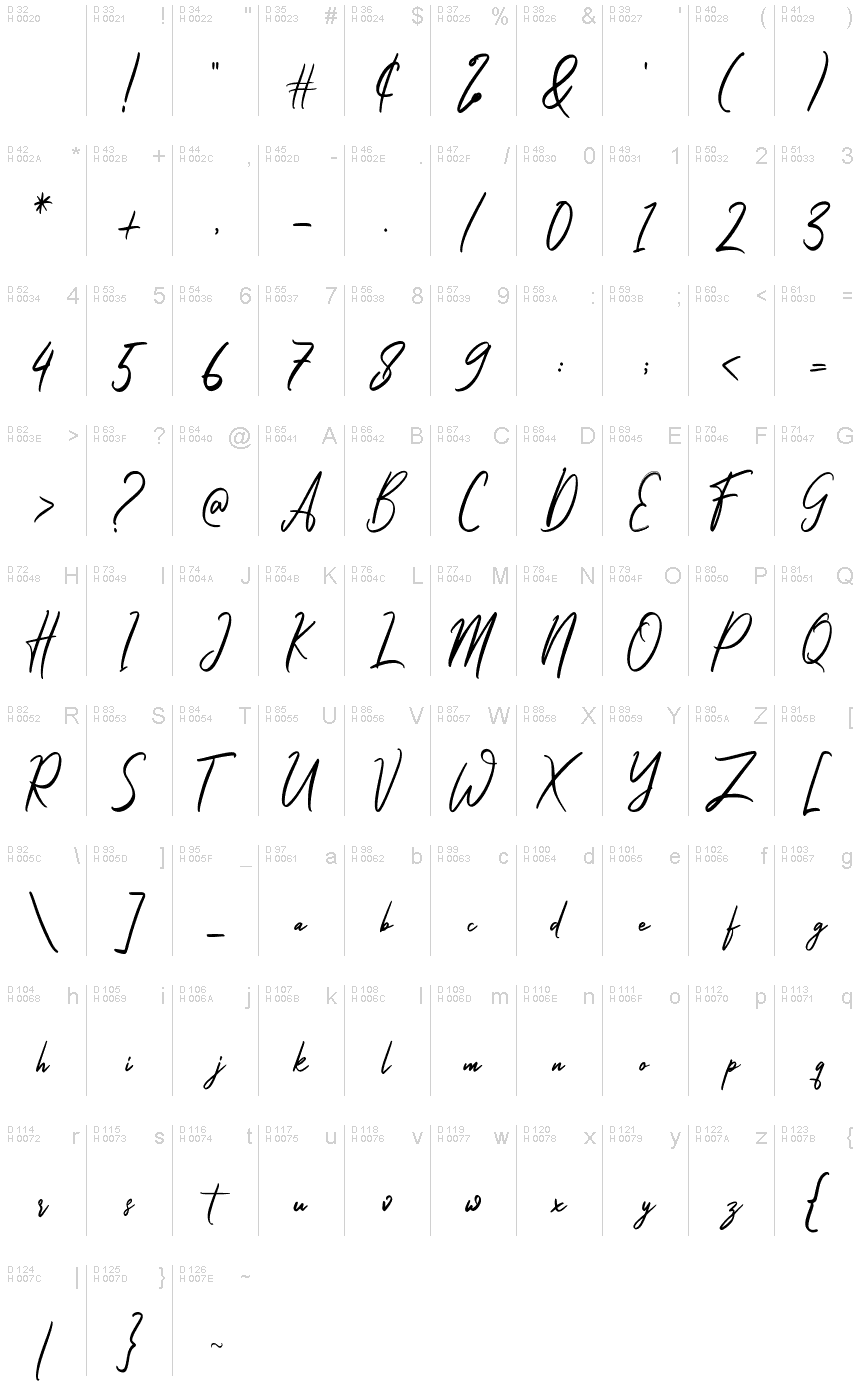
Jackyband
Jackyband, a creation by Ikrar Bey Khubaib, exudes a natural charm with its semi-light, handwritten style. This font captures the essence of personal touch in each curve, making it perfect for projects that require an intimate and inviting feel. From bespoke invitations to branding elements that demand a signature look, Jackyband's versatility shines in both digital and print realms.
Embrace the warmth and authenticity this font brings to your creative endeavors and watch as it transforms words into engaging visual stories.